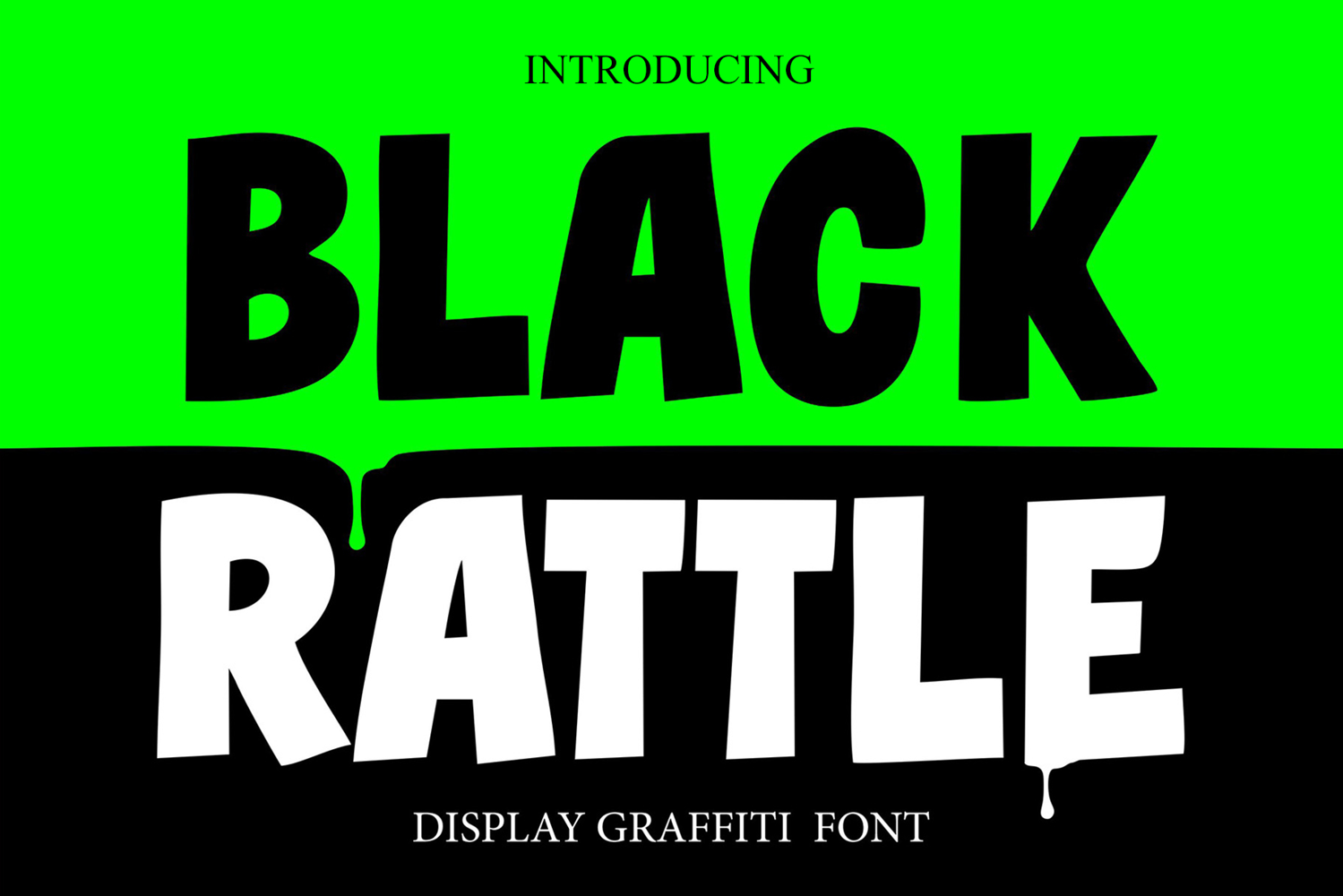
Black Rattle - Display Sans Serif Font
Introducing Black Rattle – Display Sans Serif Font, a bold and powerful typeface designed to make your message stand out. With its striking all-caps style and solid letterforms, this font is built for attention-grabbing headlines, impactful posters, modern branding, and creative digital or print projects.
Every curve and edge of Black Rattle delivers confidence. Whether you’re designing promotional flyers, event banners, social media campaigns, or professional presentations, this font ensures clarity and strength. The clean sans serif structure gives it excellent readability while its bold display weight brings maximum visual impact.
Unlike ordinary sans serif fonts, Black Rattle combines simplicity with intensity. It’s straightforward yet dynamic—perfect for designers who want a typeface that commands presence without overcomplicating the design.
Key Features
- All Caps Design – bold uppercase letters for headlines and statements.
- Support Multilingual – covering multiple languages for global projects.
- Display Sans Serif Style – modern, clean, and impactful.
- Versatile Usage – perfect for posters, flyers, banners, book covers, and branding.
- Strong Legibility – clear shapes that work both up close and at large scale.
Why Designers Love It Designers love Black Rattle because it’s the ultimate tool for commanding attention. The all-caps design ensures uniformity and strength in every composition, making it easy to create layouts with authority. It’s a font that works equally well in bold marketing campaigns, cinematic titles, sports branding, and event promotions.
Its multilingual support makes it adaptable to international audiences, while the included formats give professionals the flexibility to use it across web, digital, and print environments. Whether paired with minimalist graphics or used as a stand-alone focal point, Black Rattle delivers high visual impact every time.
If you’re searching for a bold display sans serif font that blends modern style with striking clarity, Black Rattle is the perfect addition to your toolkit. It was made for projects where words need to be seen, felt, and remembered. Add this versatile typeface to your library today and let your designs speak louder than ever.